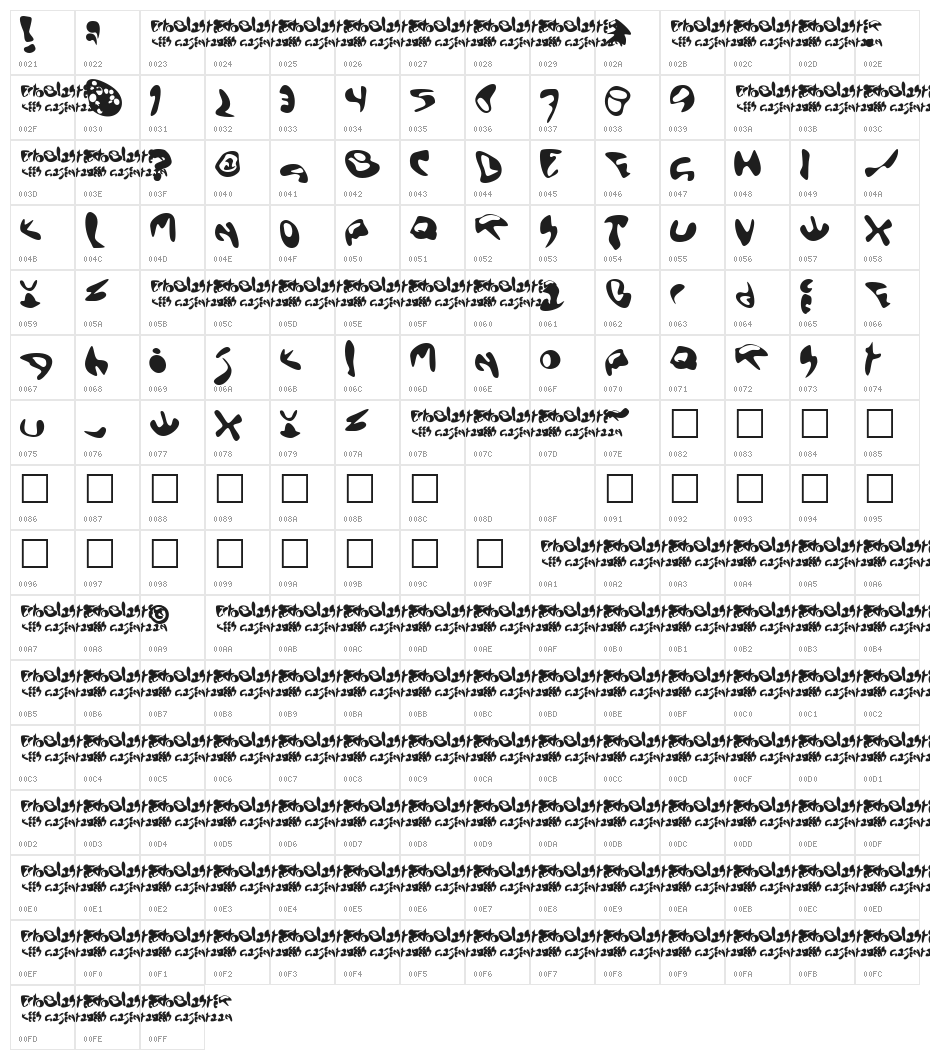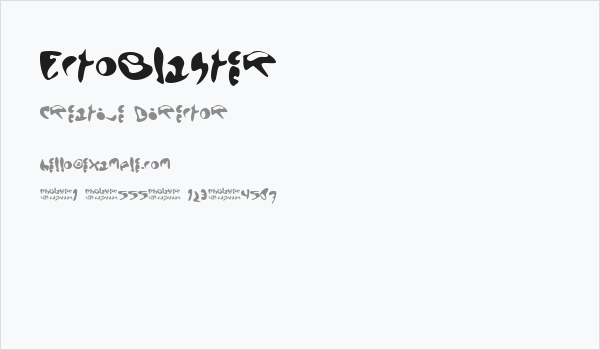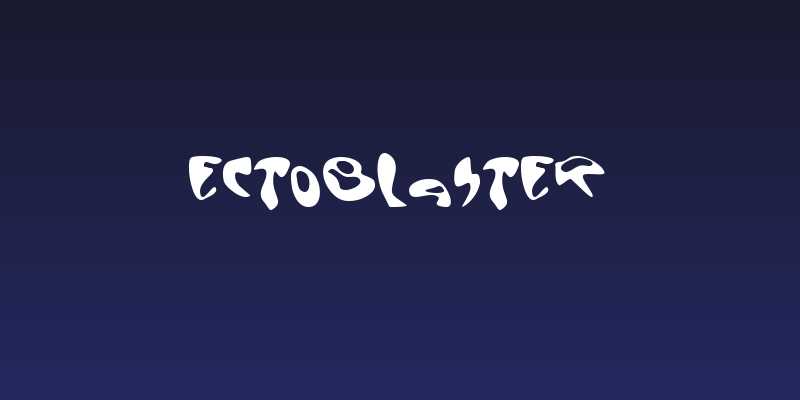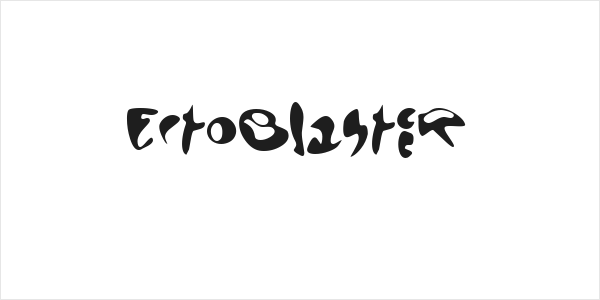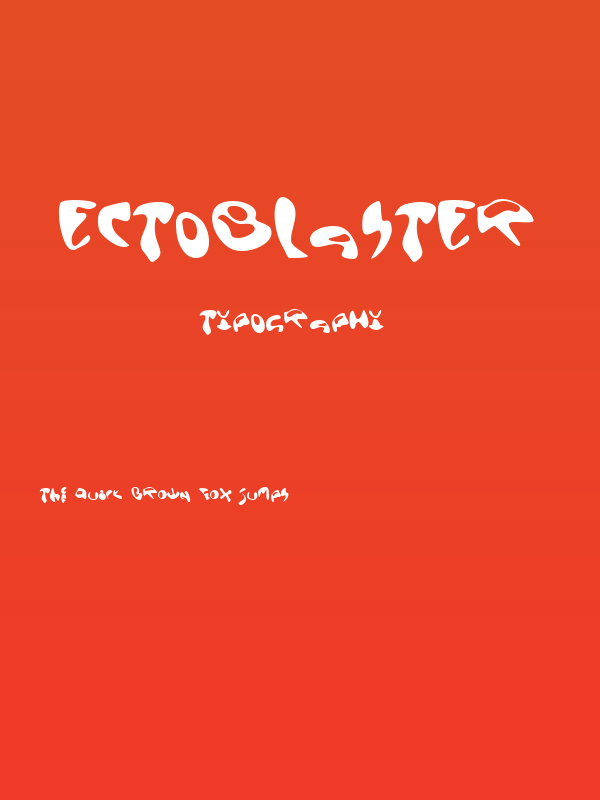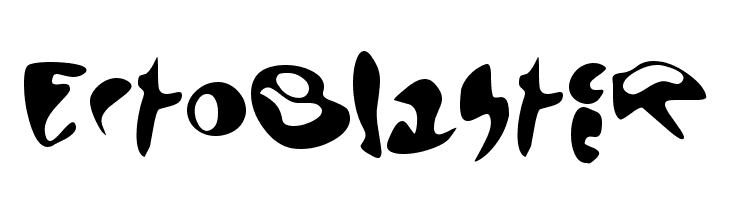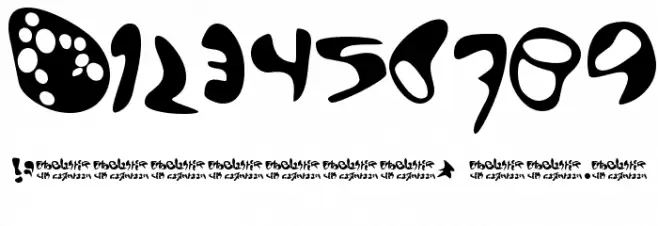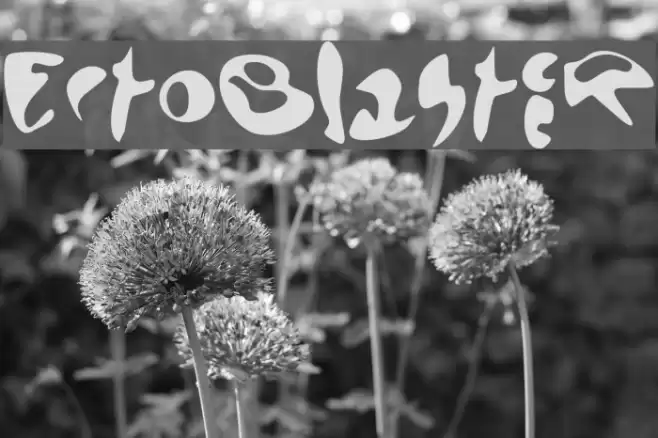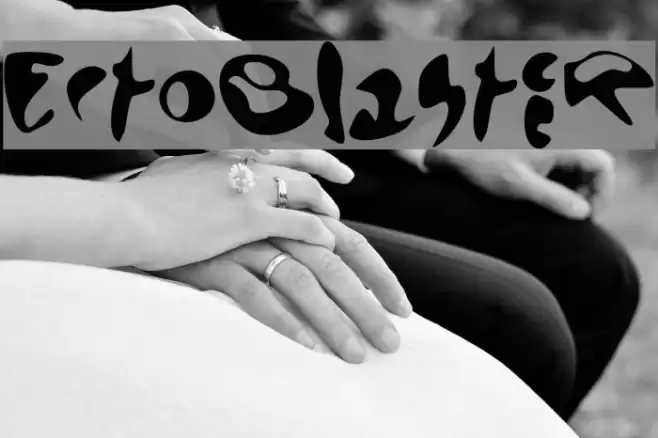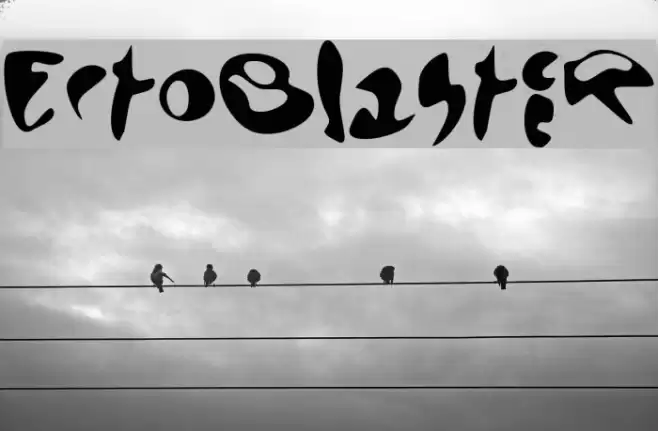
EctoBlaster Font
| Gesamtstil | Futuristic, Artistic |
| Anwendungsfall | Logos, Posters, Creative Displays |
| Vorgeschlagene Projekte | Ideal for sci-fi themed designs, video game graphics, movie posters, or any creative project needing a unique and artistic touch. |